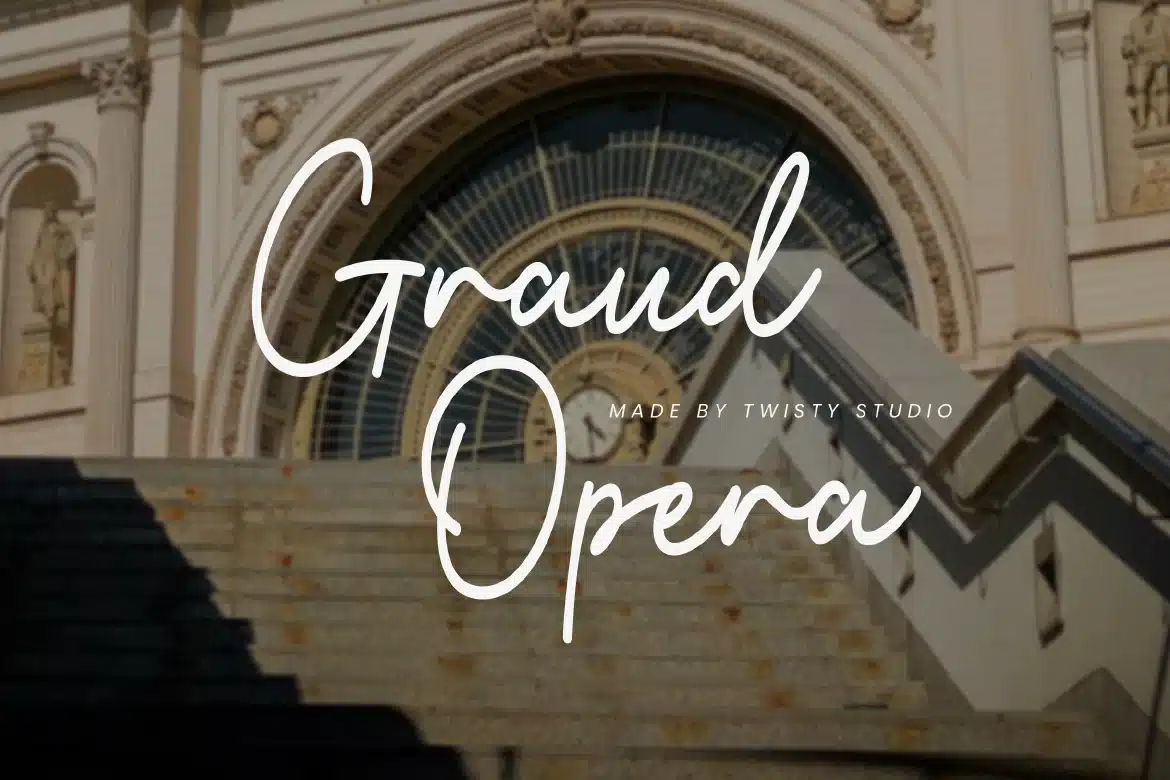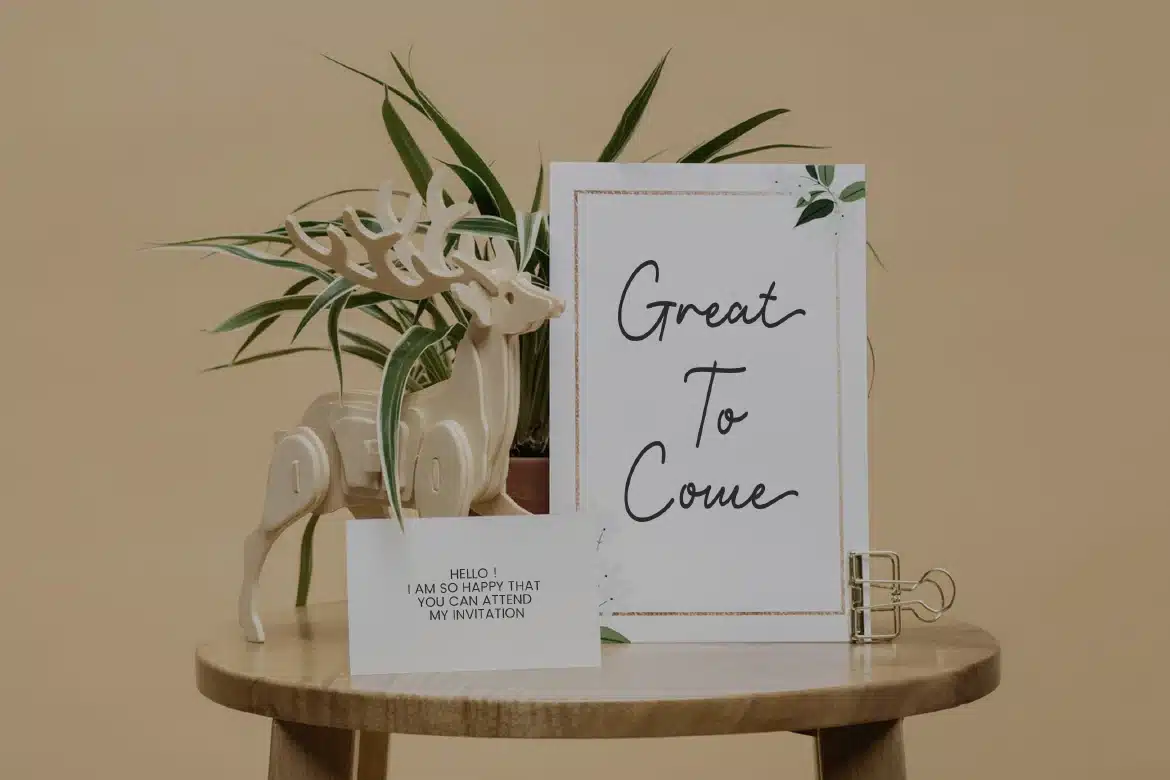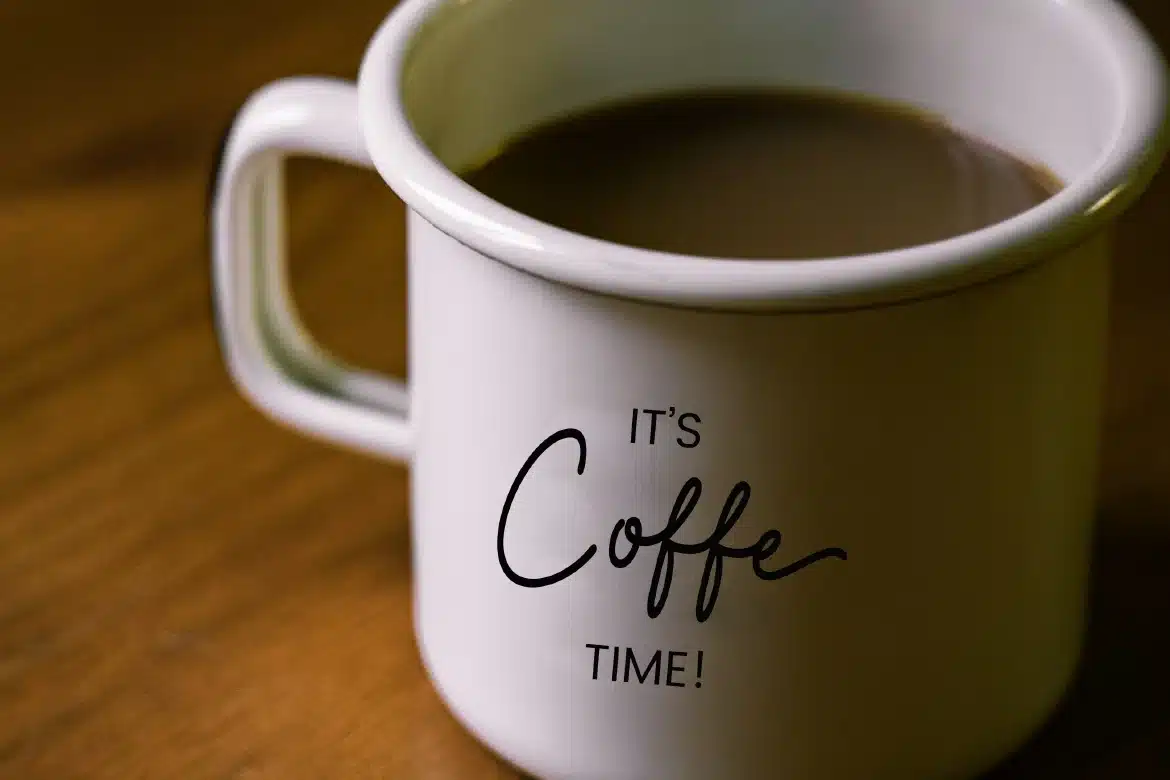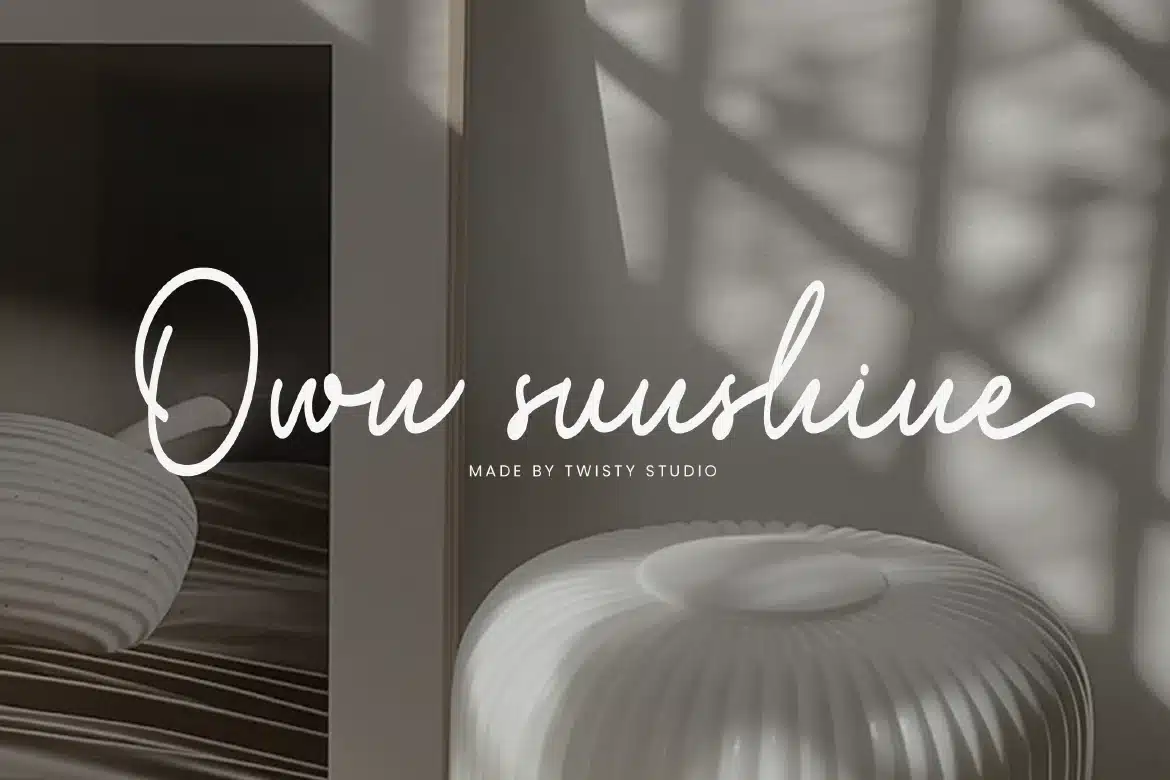
Monoline Script Font – The Palmia
Elegant Monoline Script Font - The Palmia
The Palmia is an elegant monoline script font that captures simplicity and grace through smooth, consistent strokes. Designed with a single-line style, this typeface delivers a clean and refined handwritten look that feels modern, stylish, and effortlessly sophisticated. Its flowing letterforms create a natural rhythm, while the monoline structure ensures clarity and balance across every word. The Palmia offers a subtle elegance that works beautifully for both minimal and decorative compositions, making it a versatile choice for a wide range of creative projects.
Who Should Use The Palmia?
The Palmia is ideal for designers, creatives, and brands looking for a clean and elegant script font with a modern monoline style. It’s especially suited for projects that require a soft, stylish, and refined visual touch.
Wedding and invitation design
Logo and branding projects
Beauty and fashion design
Signature and personal branding
Packaging and product labels
Social media graphics
Editorial and creative layouts
Elegant typography compositions